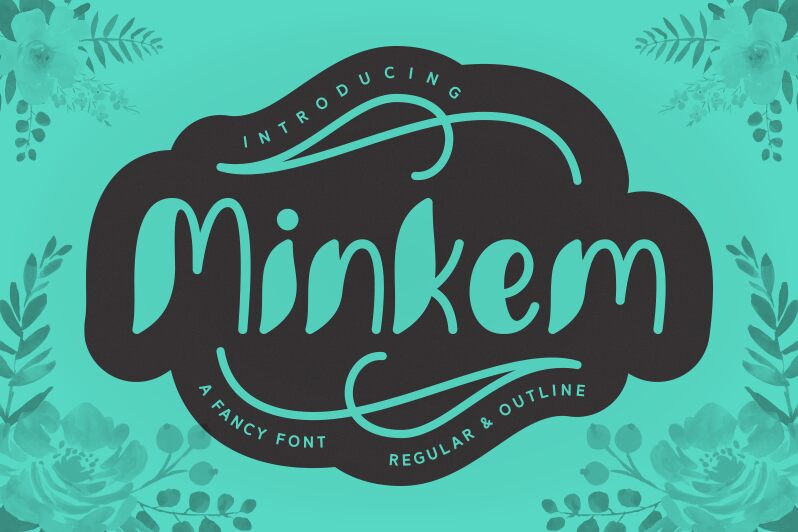
Minkem, a bold and captivating display font crafted by 7NTypes, exudes a striking presence that immediately commands attention. Its distinctive letterforms seamlessly blend fluid curves and angular edges, creating a mesmerizing visual harmony. The font's robust weight and imposing stature evoke a sense of strength and confidence, making it an ideal choice for impactful branding, eye-catching headlines, and dynamic logo designs.
Minkem's versatility shines through its ability to effortlessly transition between modern and vintage-inspired aesthetics. Its bold character lends itself beautifully to a range of design applications, from eye-catching poster campaigns and editorial layouts to modern packaging and digital interfaces. The font's unique personality makes it a compelling choice for designers seeking to leave a lasting impression on their audience.